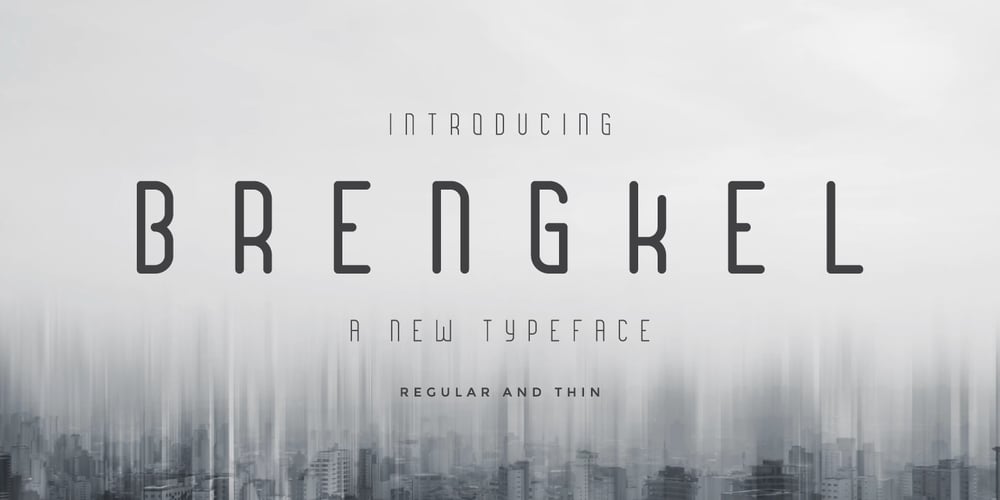
Brengkel
Brengkel font
Brengkel Font Family was designed by Muhammad Hasan and published by MuSan. Brengkel contains 2 styles and family package options. Introduce Brengkel Font. It’s allowing you to create logos, greeting cards, quotes, posters, branding, stationary, design titles, blog header, art quotes, typography art, modern envelope lettering or any purpose to make your art/design project look pretty and trendy. Brengkel Font is also suitable to use for any kind of design such as branding projects, logo, wedding designs, social media posts, advertisements, product packaging, product designs, label, photography, watermark, invitation, poster, t-shirt design, stationery and other projects.